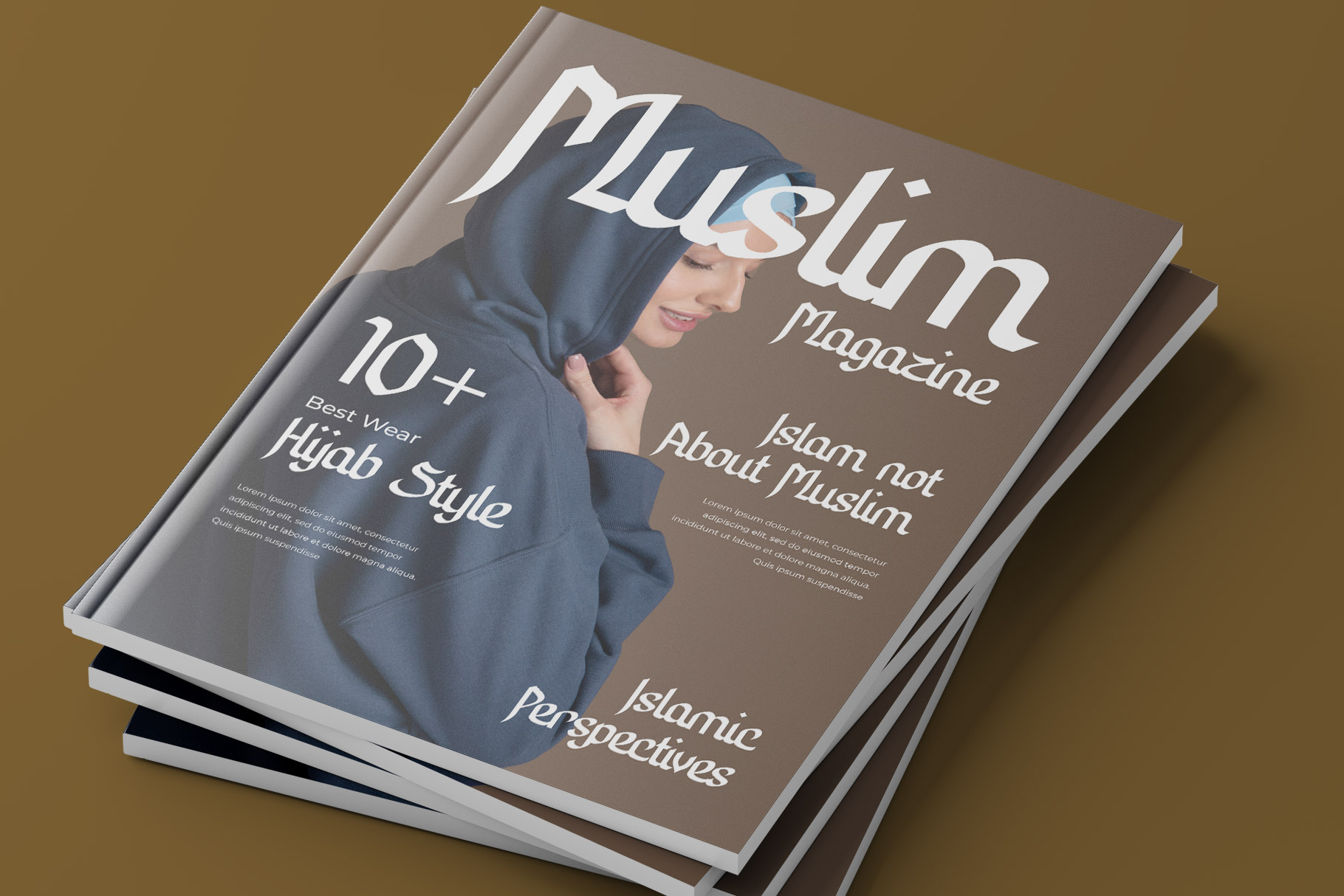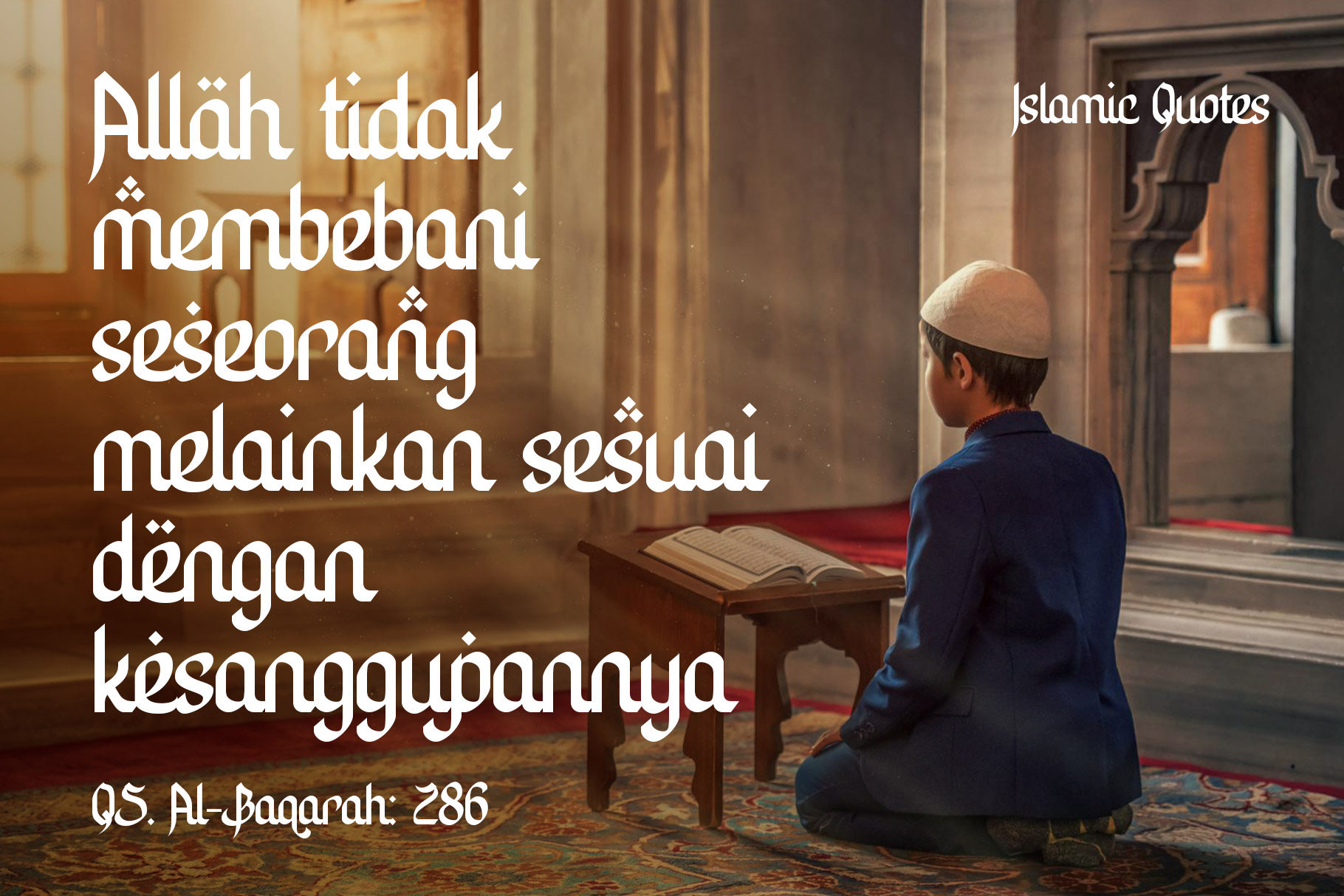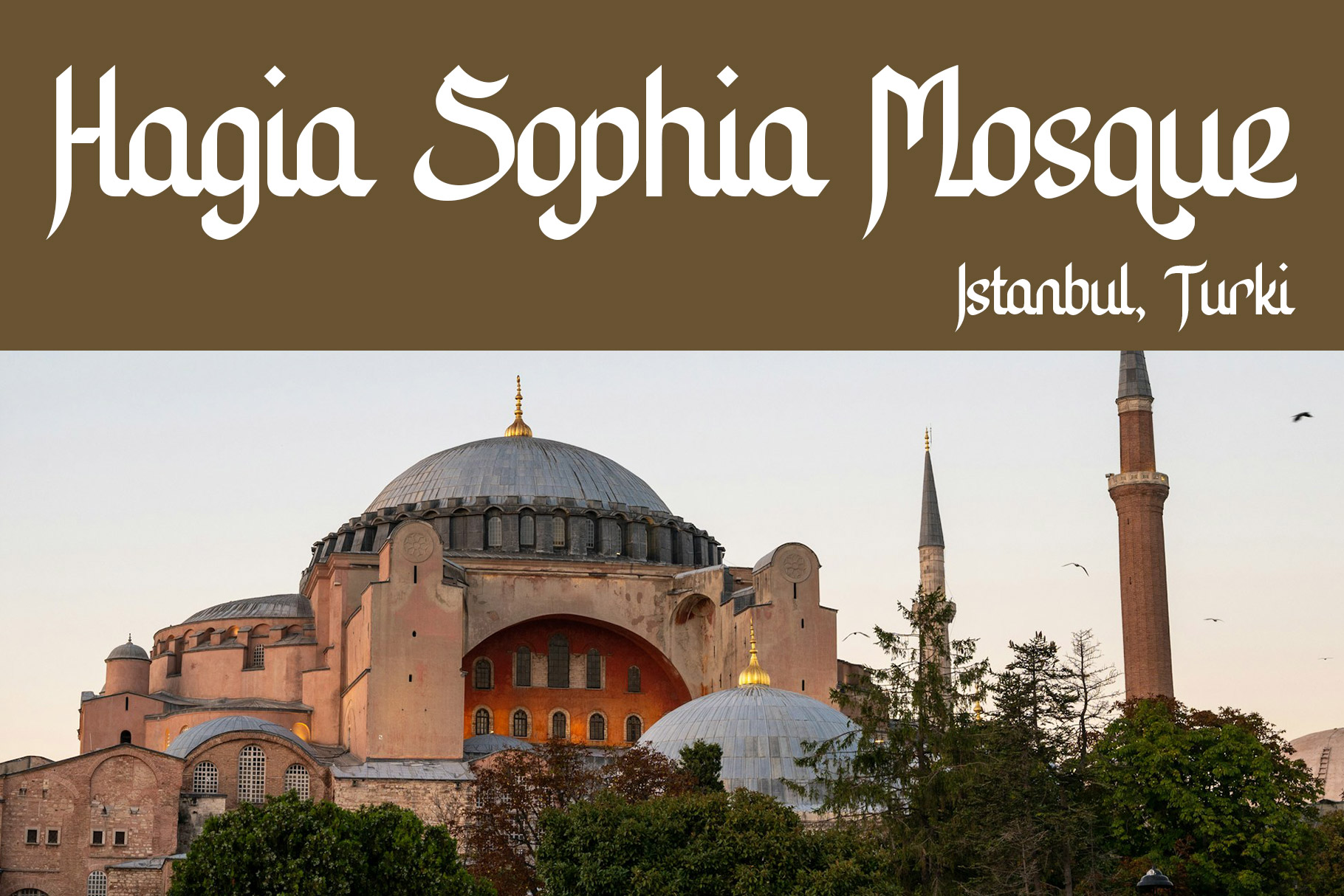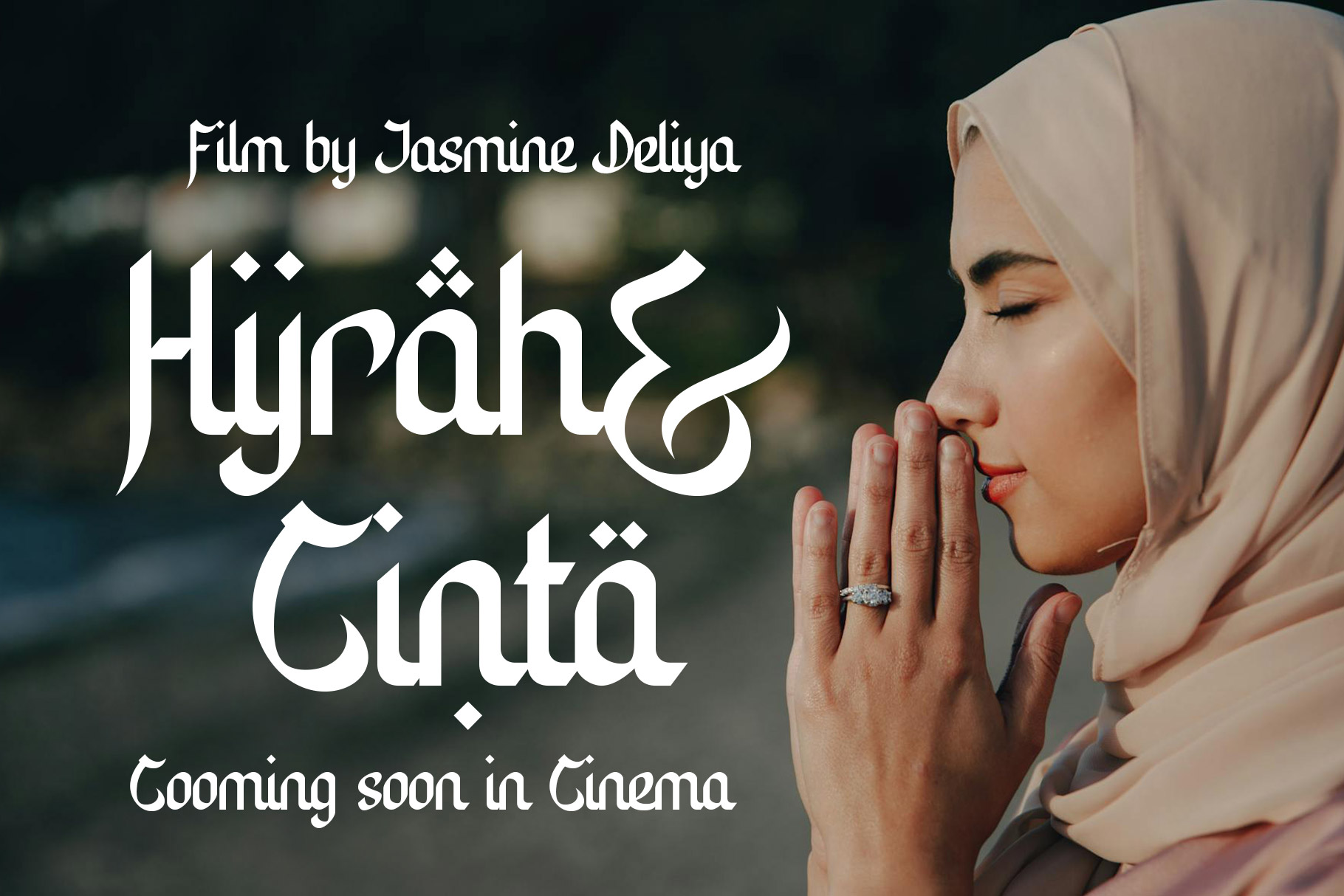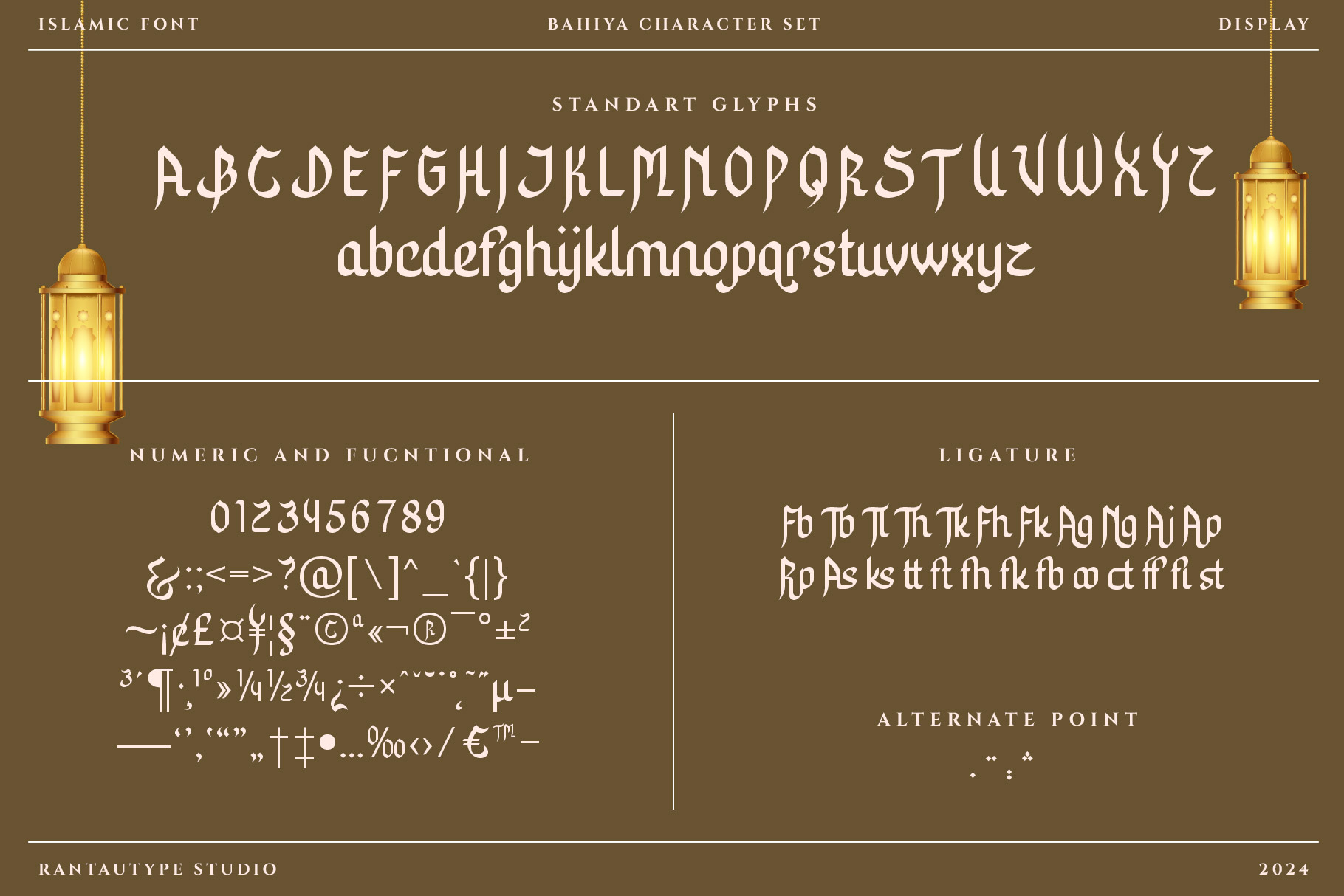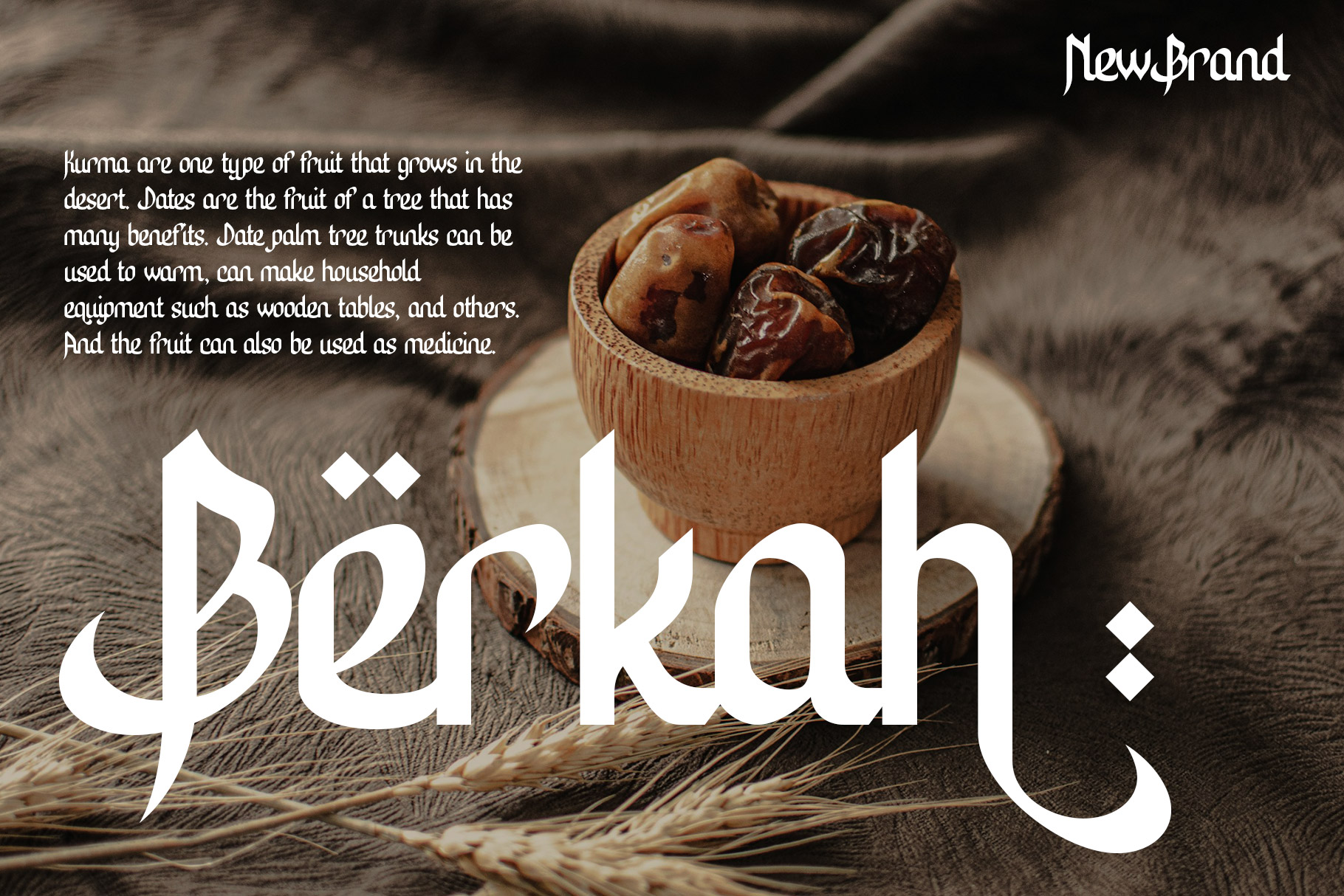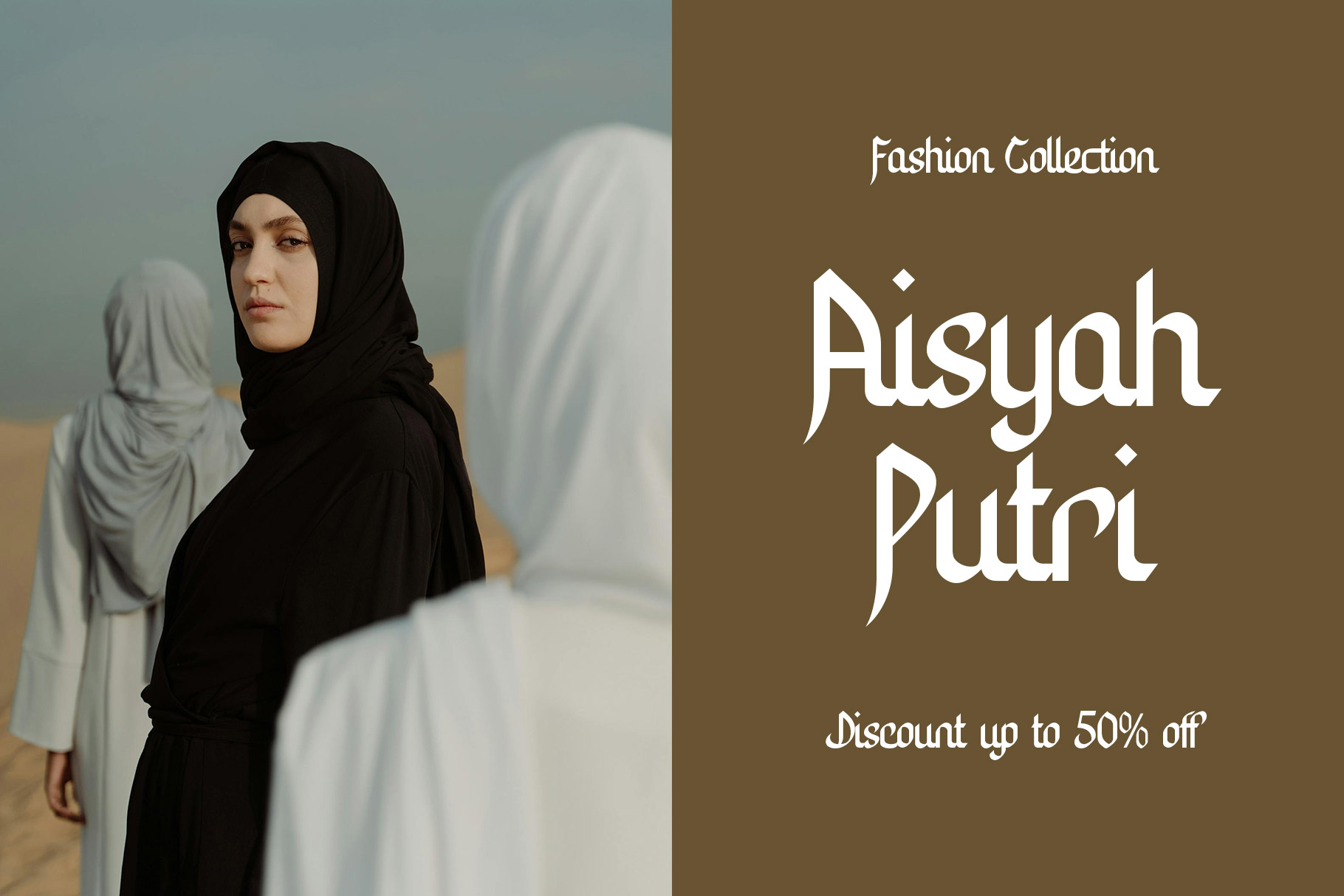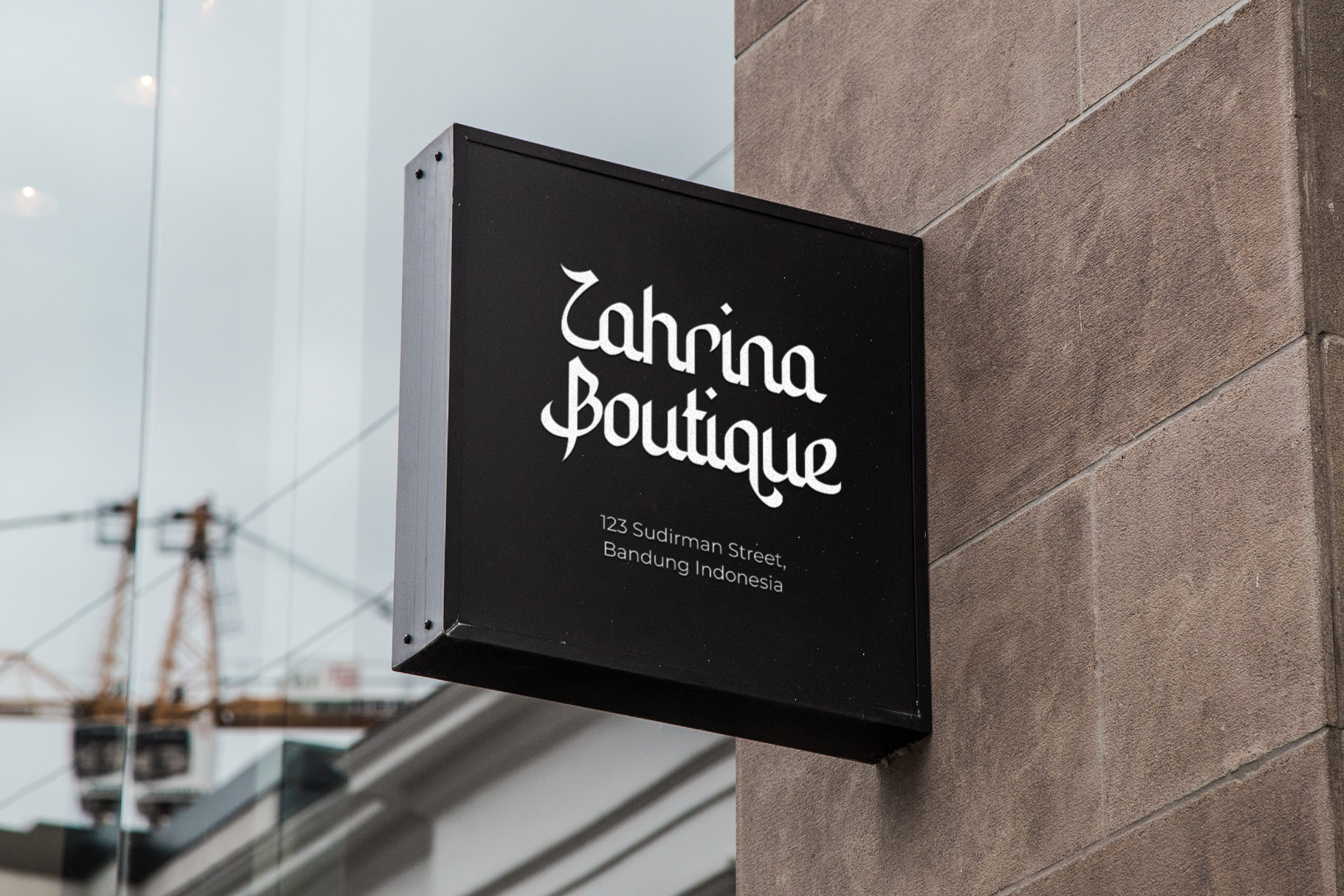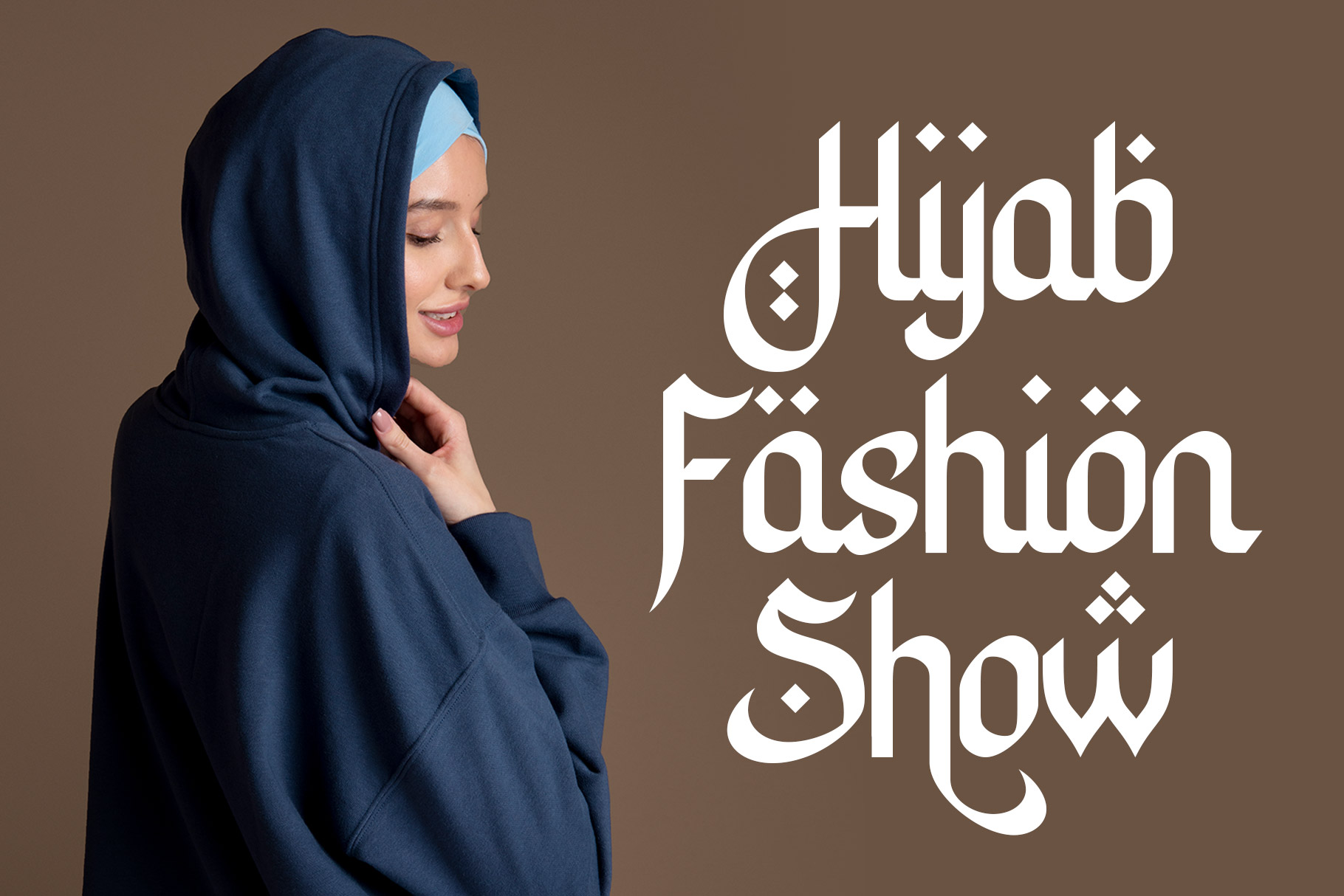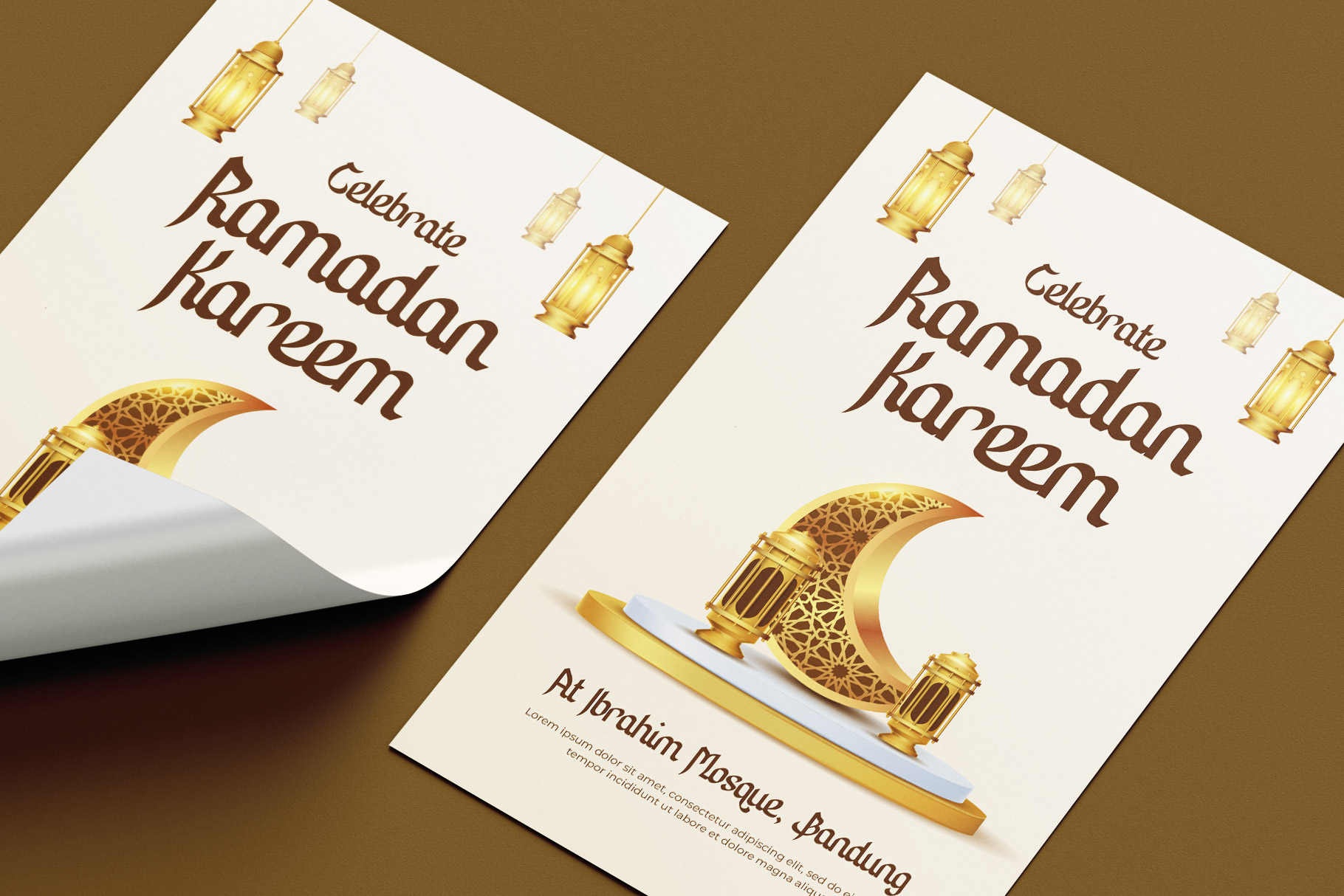
Bahiya Modern Islamic Font
Bahiya is modern islamic font with beautiful calligraphy style. Bahiya come with arabic and authentic character. Bahiya is a perfect choice for any creative endeavor, creating, modern, chic, lifestyle design such as logotype, title, cover, branding, invitations, wedding designs, display and magazine, social media posts, advertisements, printed quotes, product packaging, corporate brand, product designs, labels, photography, watermarks, special events and any other project with Islamic touch.